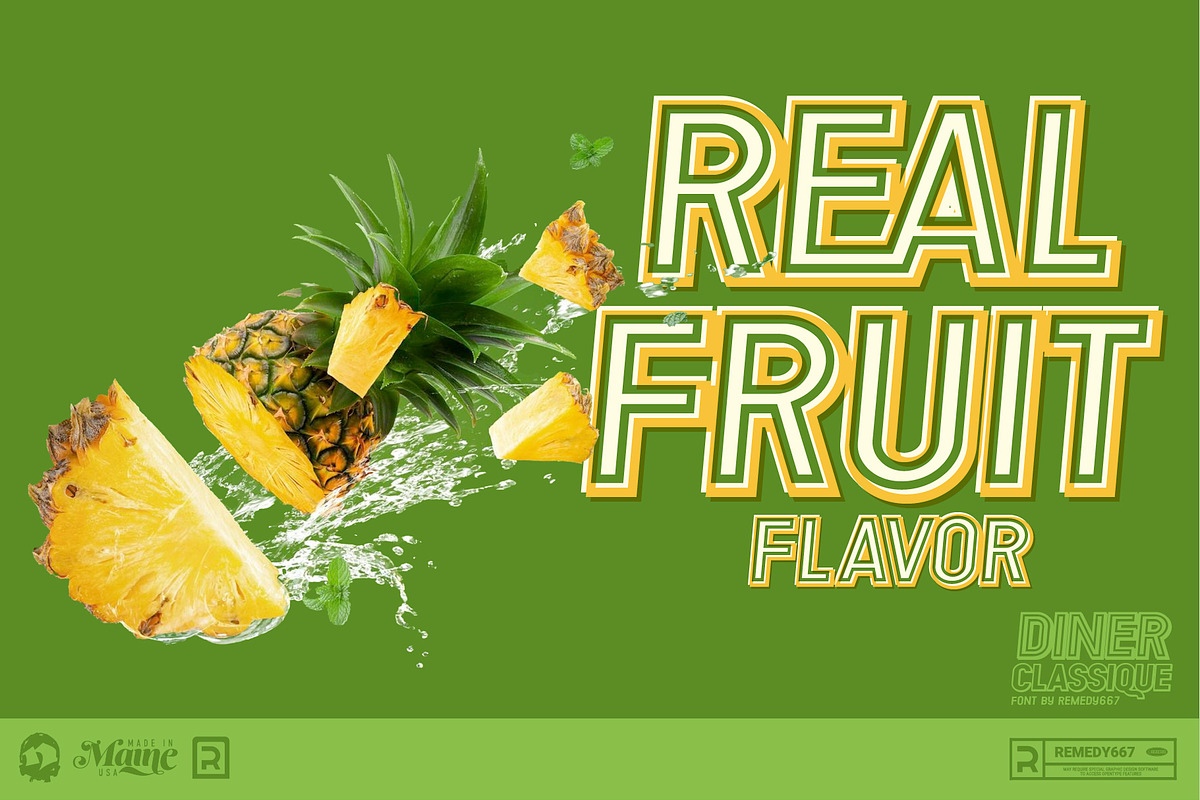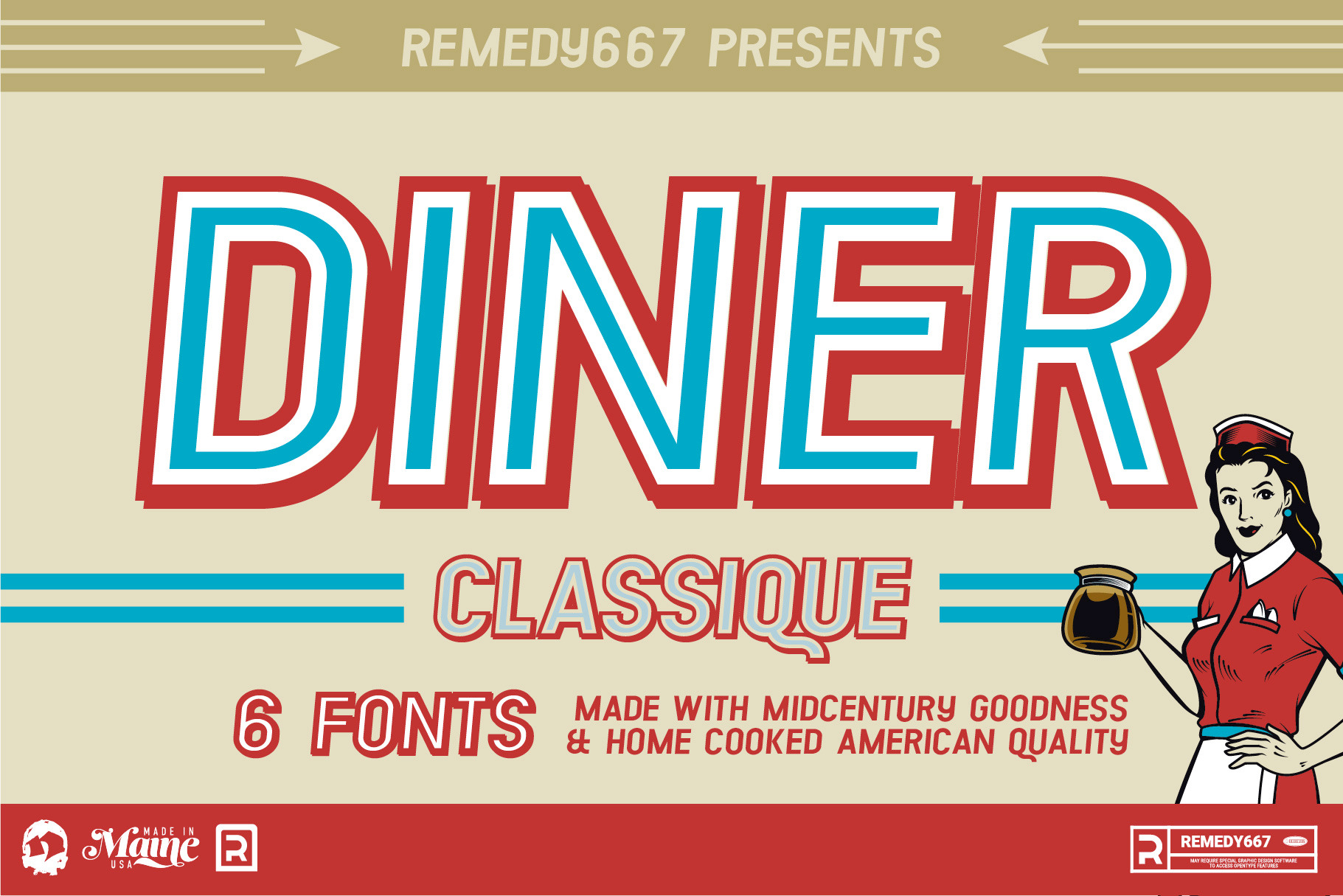
Diner Classique Retro Font
Diner Classique is a new mid-century-inspired display font from Remedy667. This typeface is a perfect solution for any modern design. It has a clean, classic look with a touch of vintage character. This bold, daring display font is inspired by old-style American diner signs and billboards.
- Comes equipped with multilingual support for Western-European language.
- Perfect for any situation that requires a clean retro feel.